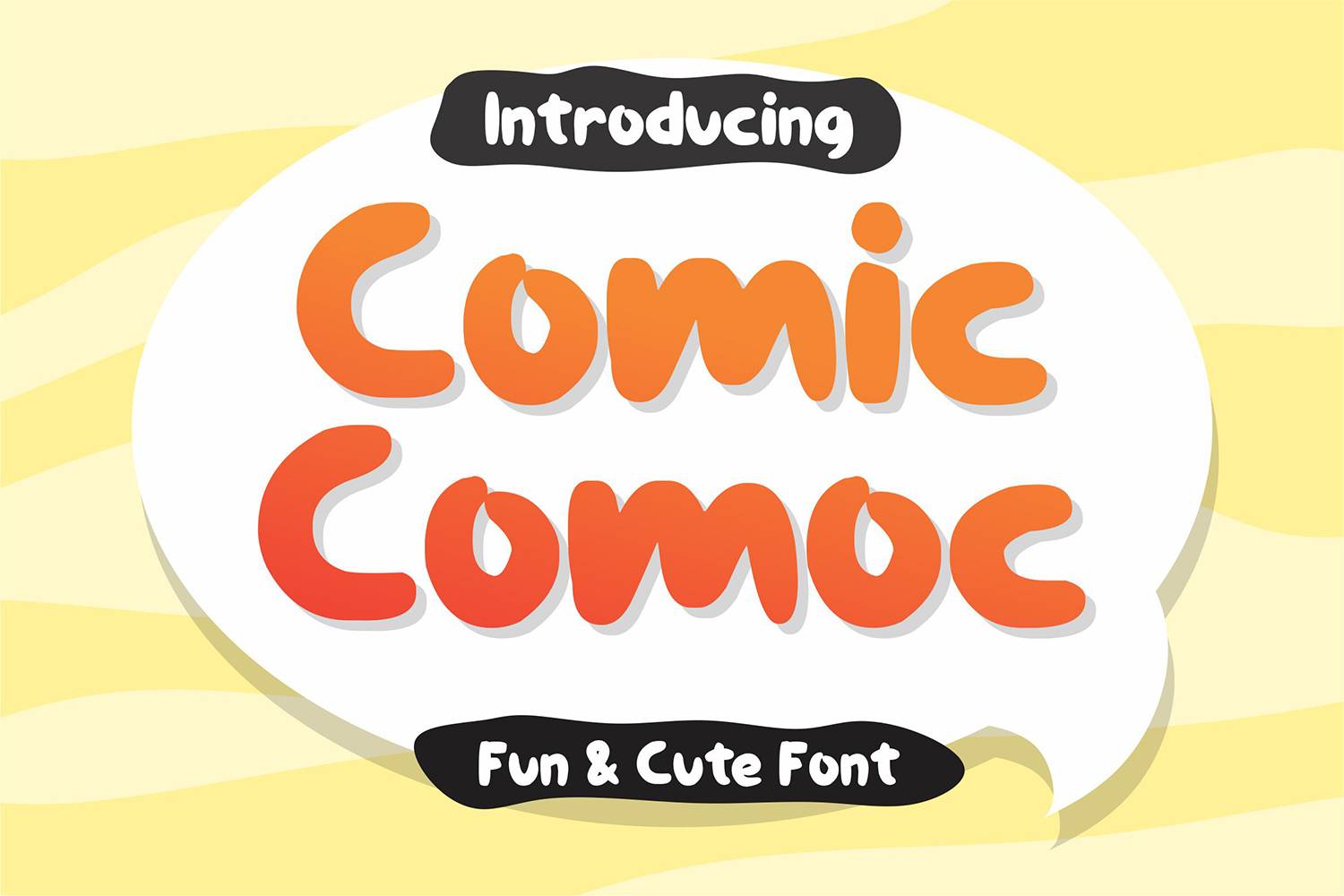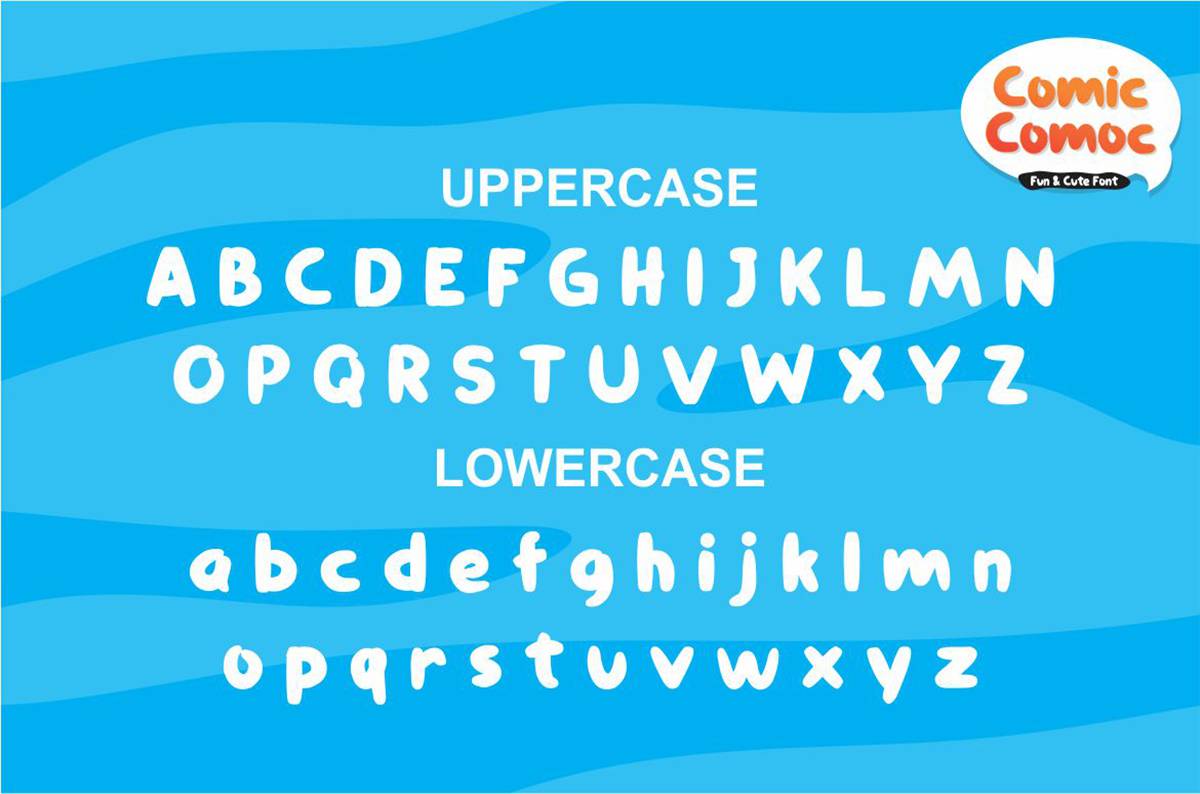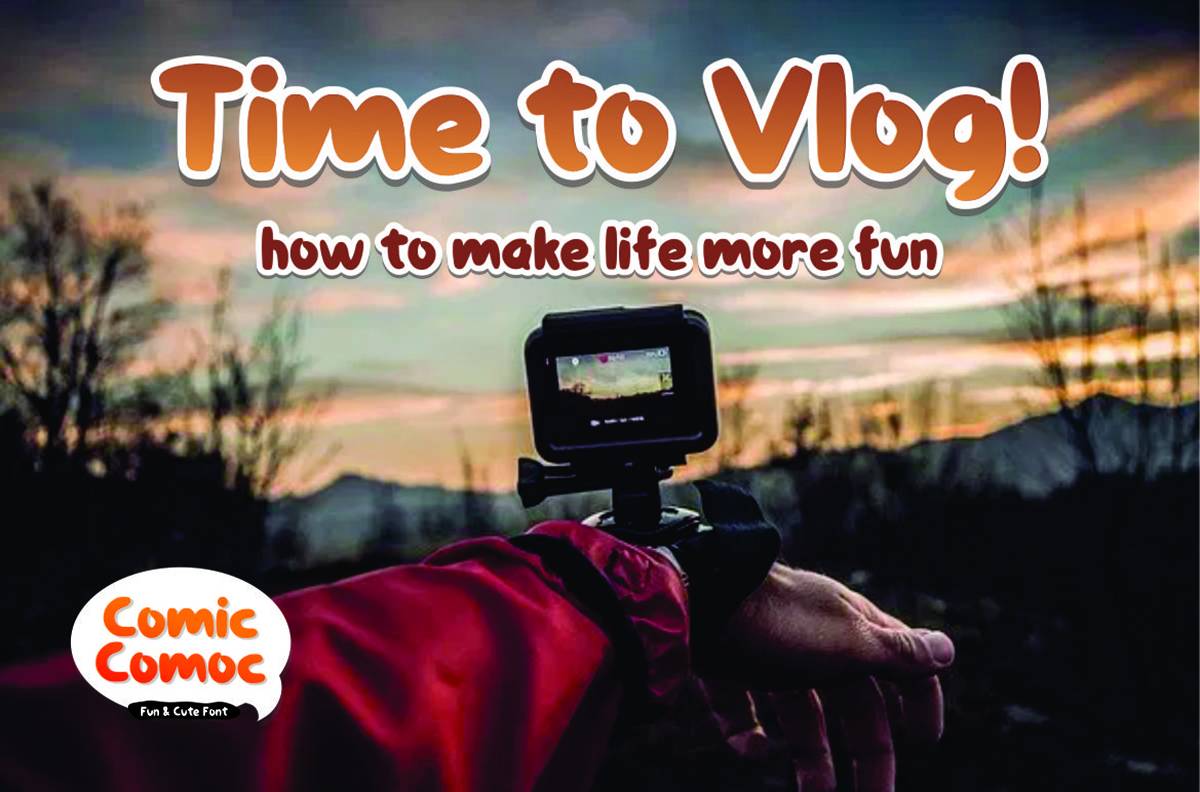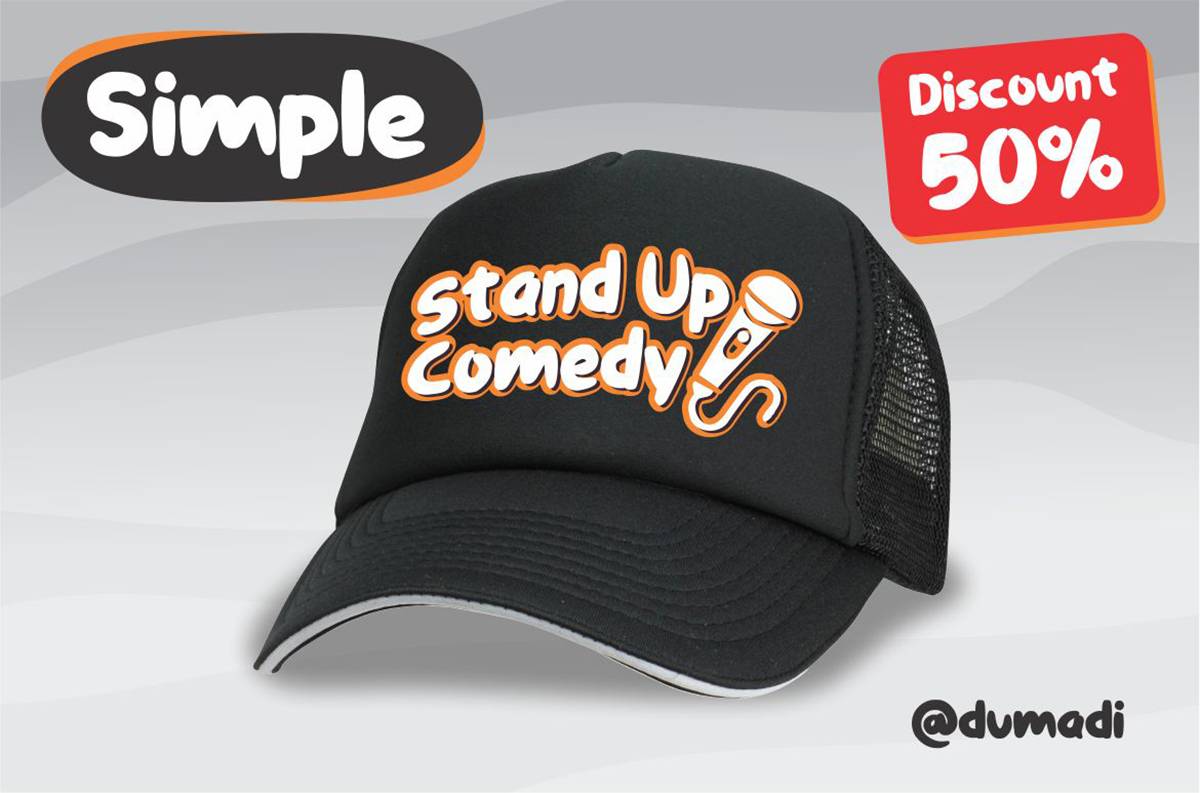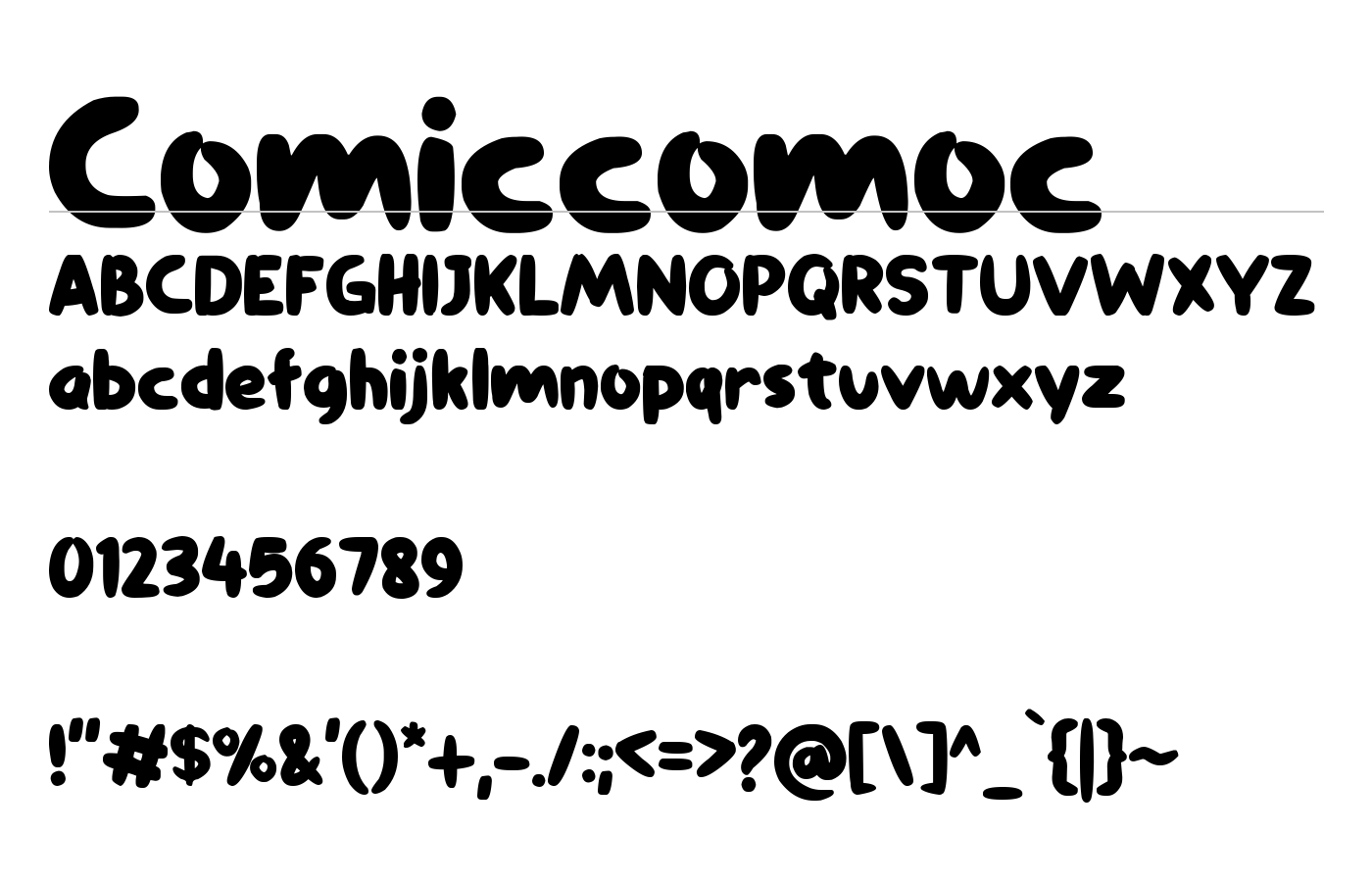
Comic Comoc is a bold, playful sans-serif font with a casual, hand-drawn feel that combines thick, rounded strokes and lively letterforms to create an inviting and friendly personality. Its informal style works beautifully for designs aimed at children, comics, or any project needing a fun and approachable vibe, making it ideal for logos, posters, and playful branding. The strong weight and clear shapes ensure good readability while maintaining a sense of energy and creativity.
Comic Comoc Font
About Comic Comoc Font